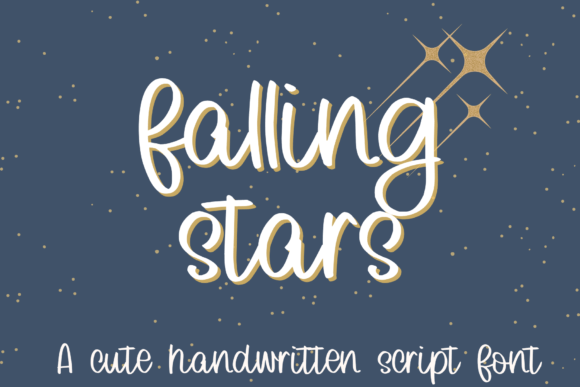
Falling Stars Font
Falling Stars is a sweet and friendly handwritten font. This cute script font is perfect for fun logos, greeting cards, t-shirt designs, stickers, social media, crafts, and much more.